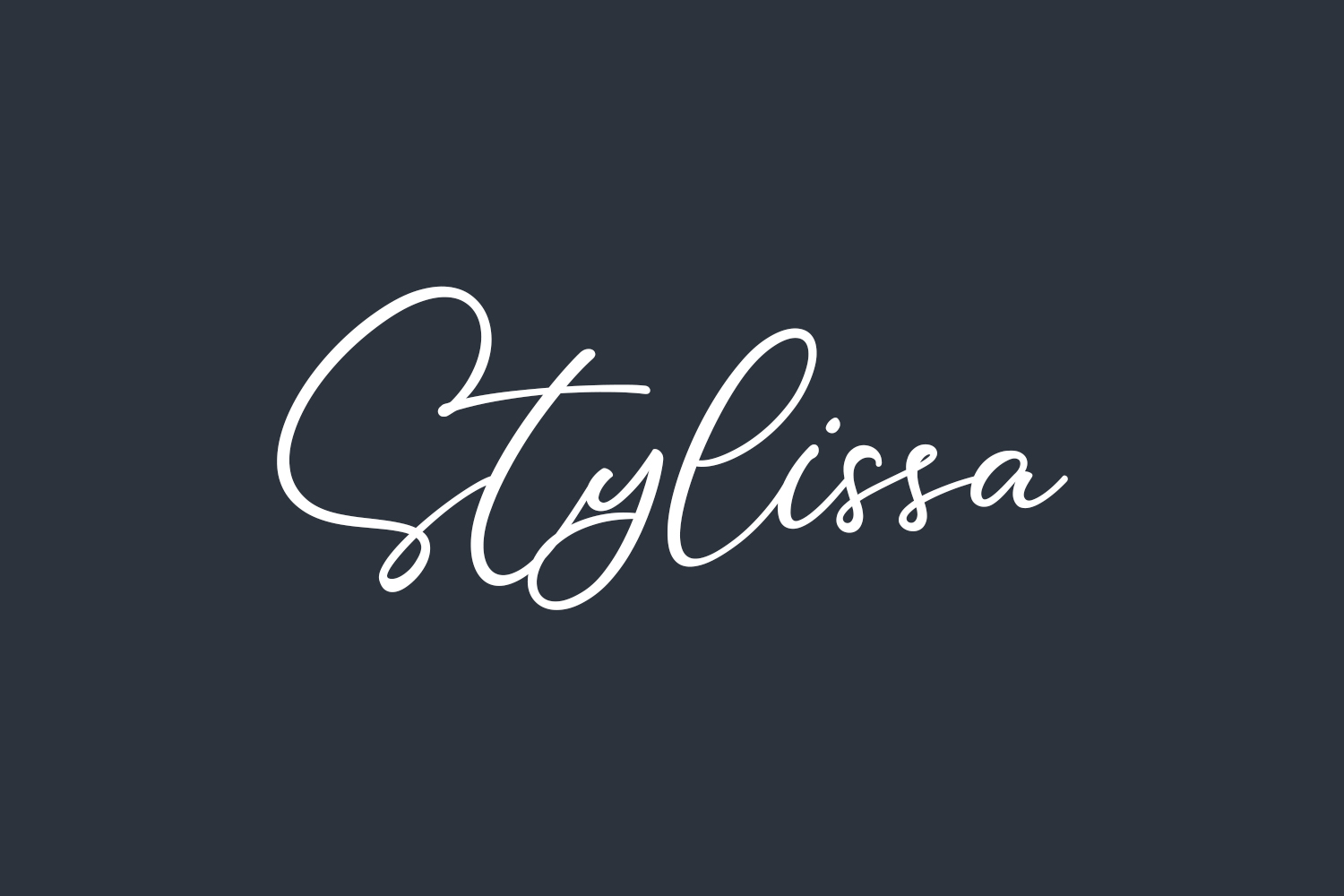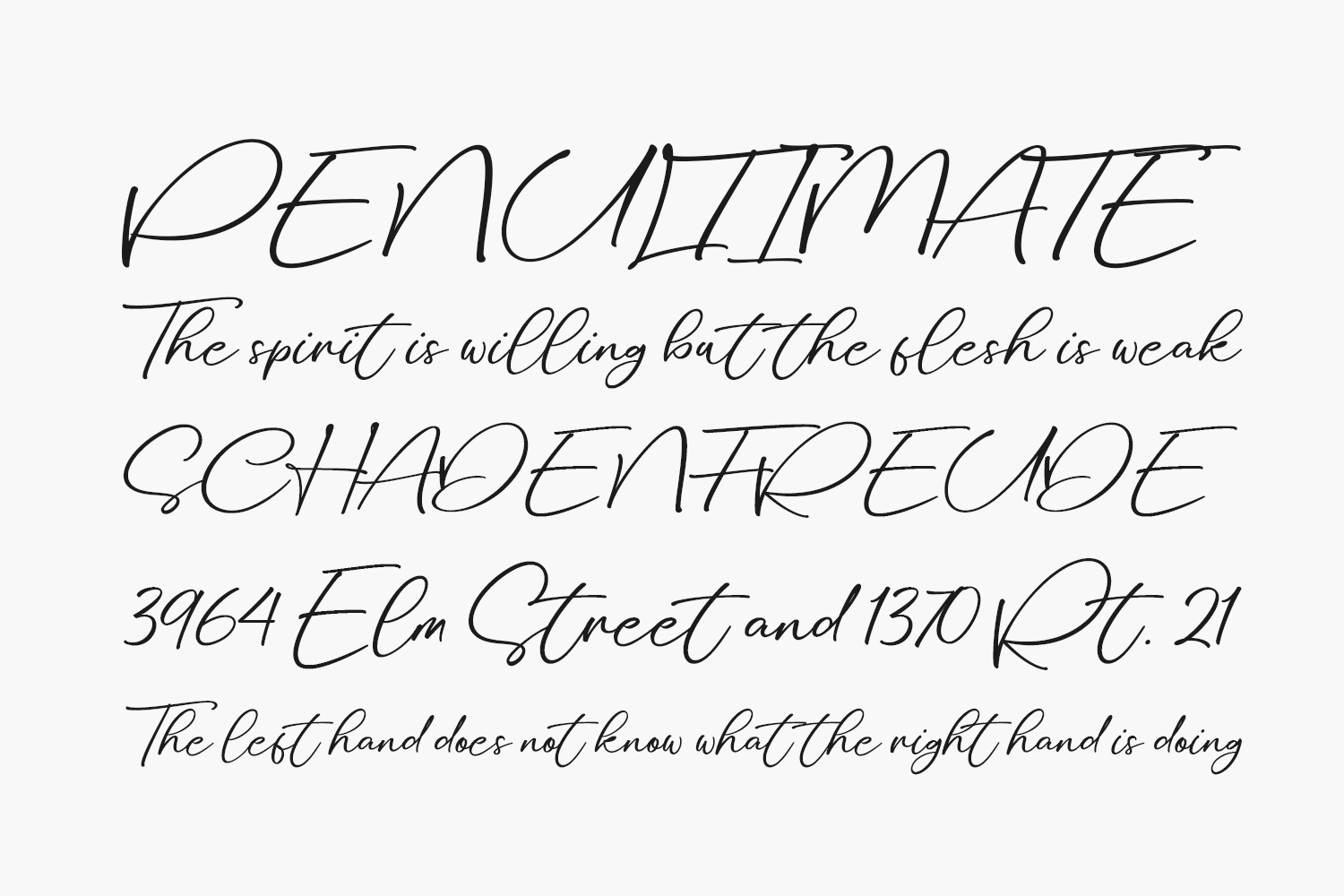
Introducing Stylissa Free Font, a charming and relaxed handwritten font ideal for various applications including logos, invitations, stationery, wedding designs, social media posts, advertisements, product packaging, and more. Infuse your projects with a romantic, handcrafted flair using Stylissa. Download the font for free if you need it for personal use or purchase the full version for commercial use.